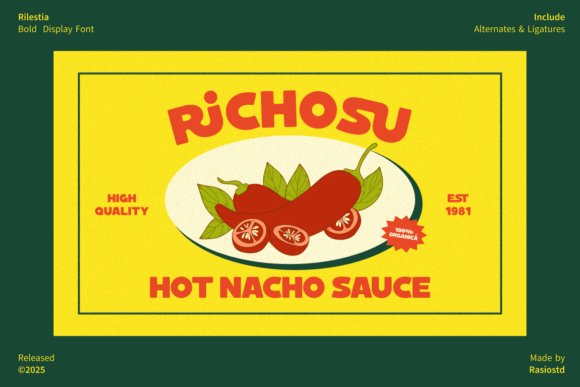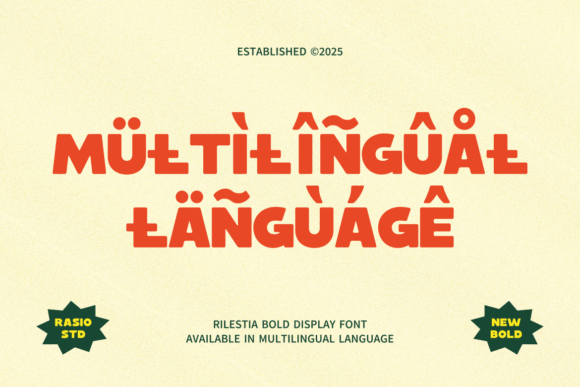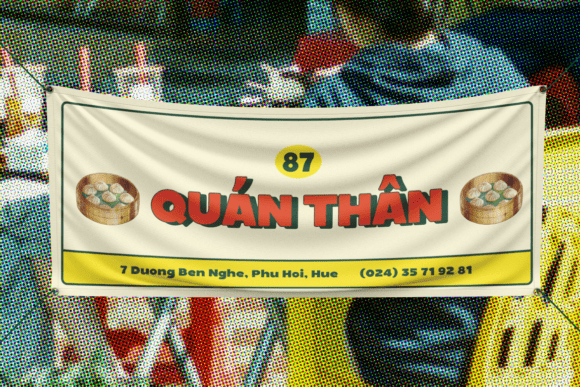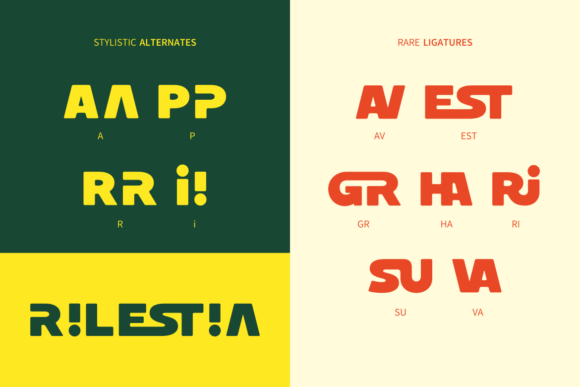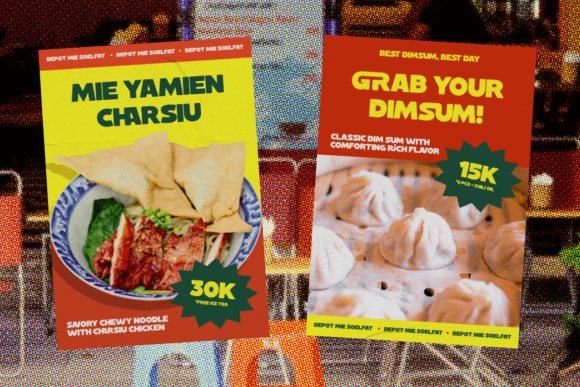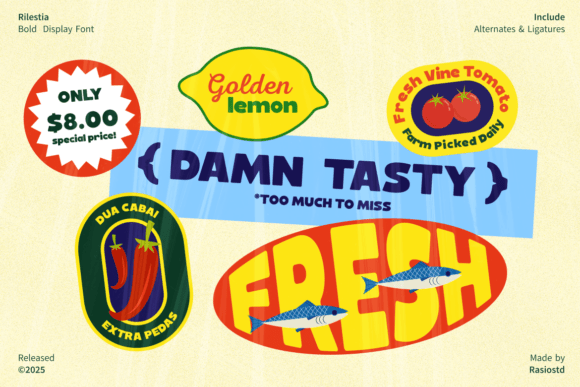
Introduction to Rilestia Font
As a designer, there’s nothing quite like the thrill of discovering a new font that sparks your creativity and elevates your project to the next level. For me, that moment came when I stumbled upon the Rilestia Font – a bold retro display font that transported me back to a bygone era of vintage product packaging and classic food label design. Its thick rounded letterforms, strong geometric structure, and smooth curves instantly won me over, and I knew I had to dive deeper into its world.
With its unique blend of nostalgia and modern flair, Rilestia Font is a design resource that’s sure to become a go-to favorite for creatives. Whether you’re working on a high-quality branding project, a product promotion, or a social media graphic, this font’s versatility and clean aesthetic make it an ideal choice for designers seeking a timeless yet modern-friendly identity.
Best of all, Rilestia Font is available for free download, complete with uppercase and lowercase characters, numerals, full punctuation, and special alternates & ligatures to enhance creative flexibility. And with its transparent background, you can easily integrate it into your design without worrying about background distractions. In this article, we’ll take a closer look at the Rilestia Font and explore its many uses and benefits for designers.
Key Features of Rilestia Font
- High-quality, professional font design perfect for creative projects and designs.
- Comes in a transparent background, allowing for easy customization and integration into various designs.
- Features a unique, elegant style suitable for a wide range of creative applications, from logos to typography.
- Designed to be highly versatile, making it an excellent addition to any design library or collection.
Honest Review: Rilestia Font
I recently stumbled upon the Rilestia Font, and I must say it’s been a great addition to my design resources. The font is perfect for any creative project that requires a high-quality, unique touch.
- ✨ Beautifully designed with a transparent background, making it easy to use on any design surface
- ✨ Highly customizable, allowing you to adjust the font’s style to fit your project’s needs
However, there are a few limitations to consider. The font may not be suitable for projects that require a bold, statement-making font. Additionally, the free version does have some restrictions on commercial use.
Overall, I’m impressed with the Rilestia Font and would highly recommend it to designers looking for a high-quality, creative resource. While it may have some limitations, the benefits far outweigh the drawbacks.
For the best results, use Rilestia Font in conjunction with other high-quality design resources. Experiment with different font sizes, colors, and styles to create unique and eye-catching designs. The transparent background of Rilestia Font also makes it perfect for creating graphics and designs with a transparent background.